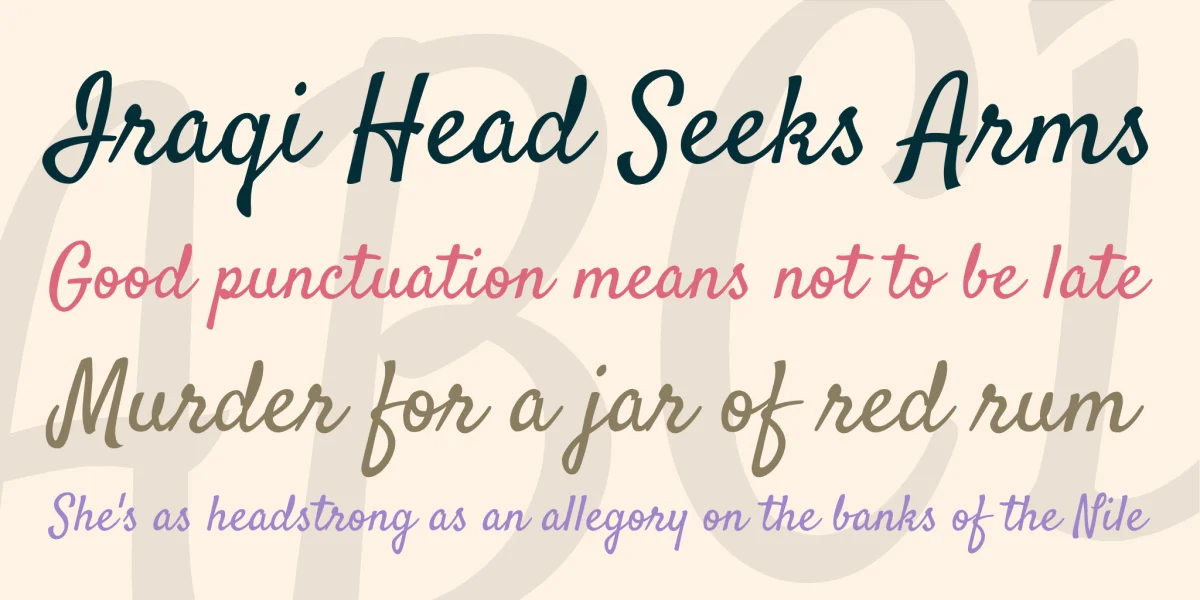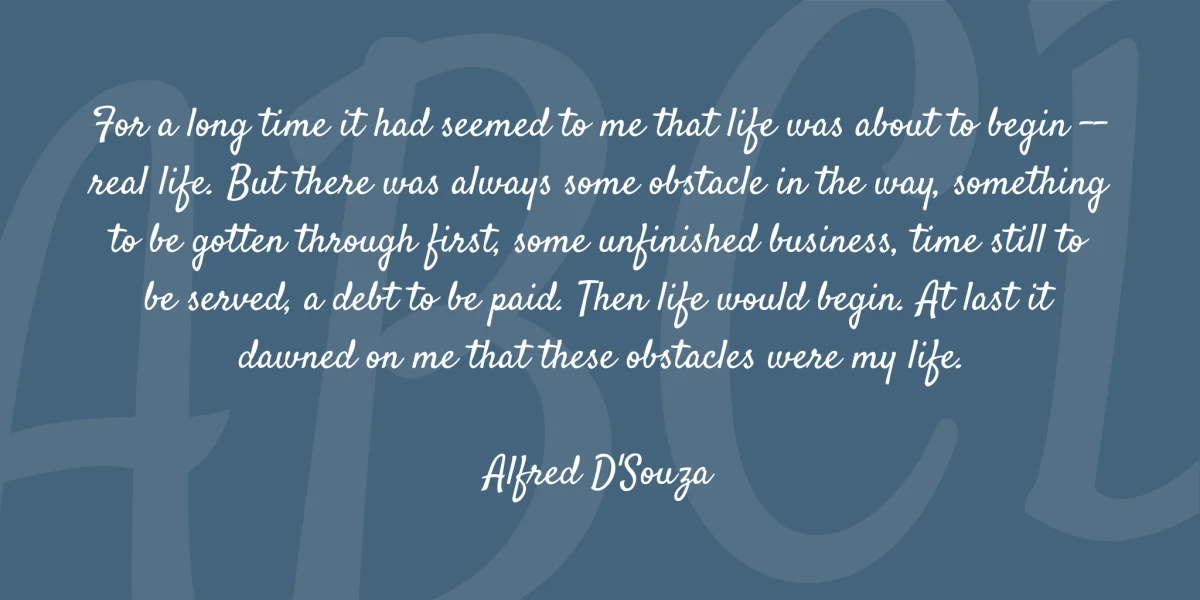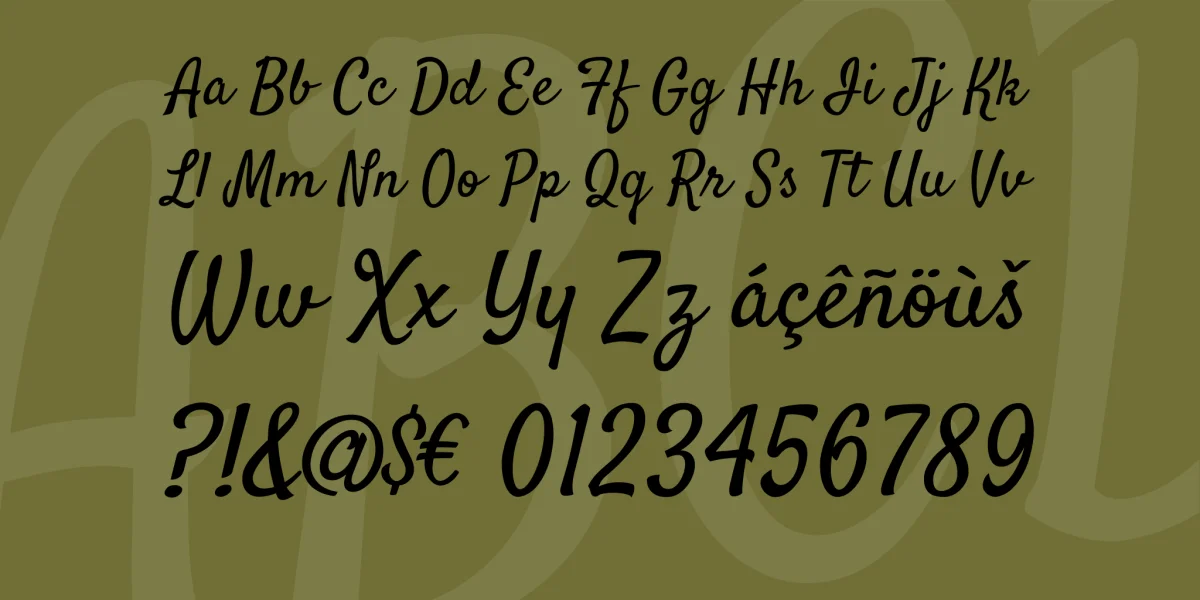
Looking for a brush script with a little pizazz? This new Sideshow typeface will fill the bill! Satisfy gives you the look of a timeless classic with a unique modern flair. Download this font by designer Squid and you'll be satisfied!